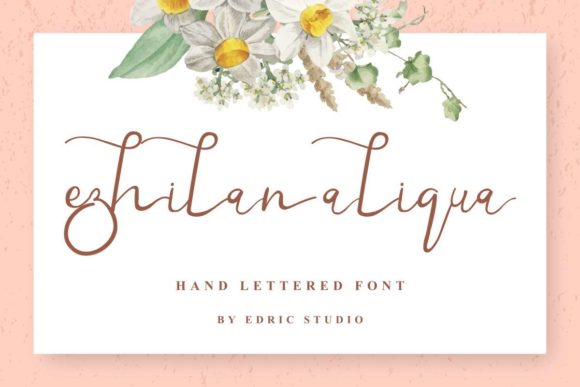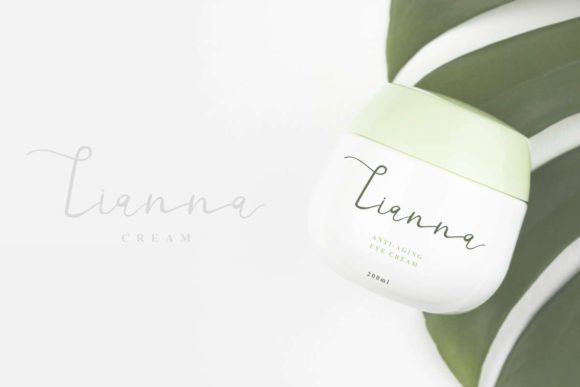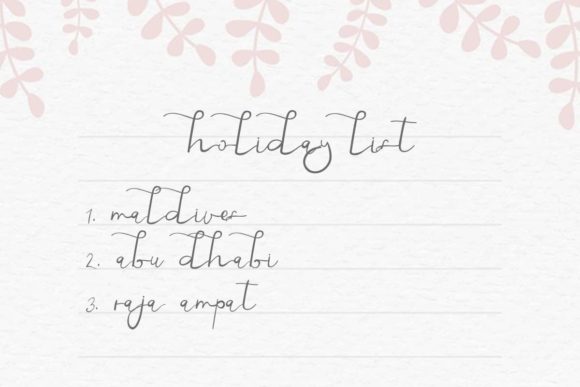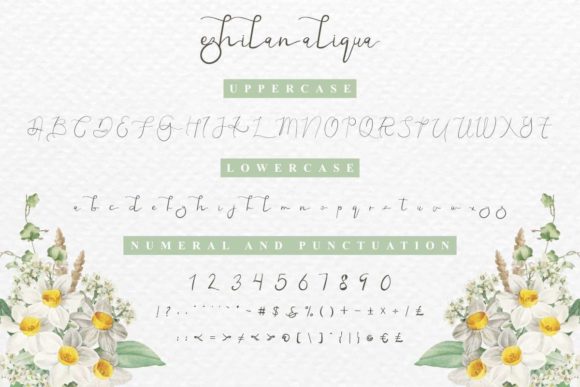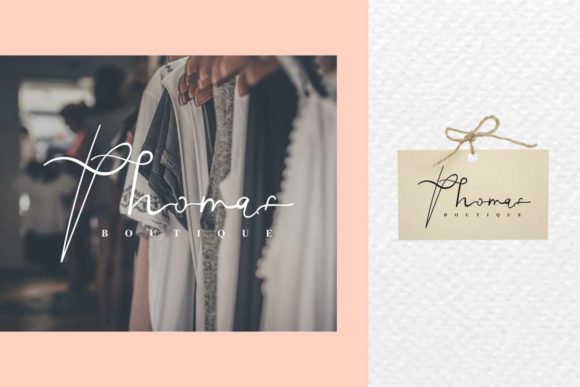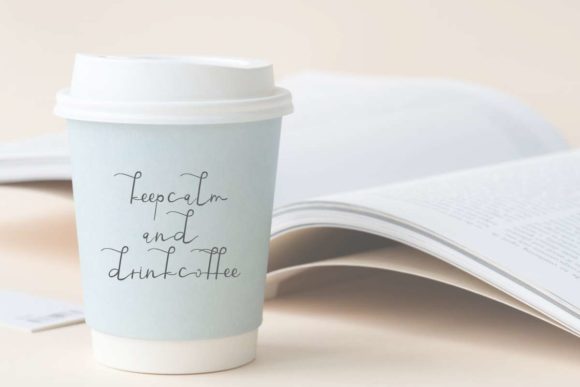
Discover the Magic of Ezhilan Aliqua Font
Have you ever been stuck on a design project, searching for the perfect font to bring your vision to life? We’ve all been there – pouring over fonts, trying to find that elusive combination of style and sophistication. And then, it hits you: the perfect font that elevates your design from ordinary to extraordinary. For many designers, that font is Ezhilan Aliqua, a sweet, soft hand-lettered script that adds a touch of elegance to any project.
Whether you’re working on branding, headings, wedding designs, or invitations, Ezhilan Aliqua Font is the perfect tool to take your designs to the next level. Its versatility and charm make it a valuable asset for designers looking to create unique and memorable designs. With Ezhilan Aliqua Font, you’ll be able to add a personal touch to your work, making it truly special and distinctive.
- Unique Characteristics: Ezhilan Aliqua Font features a unique blend of modern and traditional elements, making it an excellent choice for projects requiring a unique aesthetic.
Ezhilan Aliqua Font Review
First off, let me say that I was quite excited to dive into the Ezhilan Aliqua Font and see what it had to offer. I was immediately struck by the elegant and modern aesthetic it presents. The font has a sophisticated and refined look that’s perfect for any high-end branding or design project. ✨
One of the standout features of this font is its excellent legibility, even at smaller font sizes. This makes it an excellent choice for body text and other areas where clarity is key. Additionally, the font’s versatility allows it to work well in both digital and print applications. ✨
However, I did encounter a few limitations during my review. For one, the font’s character set is somewhat limited, which may not be ideal for languages that require a wider range of characters. Additionally, the font’s bold weight can sometimes appear slightly inconsistent, which may be a concern for designers who prioritize precision. ⚠️
Overall, I’d say that the Ezhilan Aliqua Font is a solid choice for designers who value elegance and sophistication in their typography. While it may have some limitations, its strengths far outweigh its weaknesses, making it a great option for a wide range of design applications.
Here are some key pros and cons to consider:
- ✨ Elegant and modern aesthetic
- ✨ Excellent legibility, even at smaller font sizes
- ✨ Versatile and suitable for both digital and print applications
- ⚠️ Limited character set
- ⚠️ Inconsistent bold weight in some cases
Tips for Getting the Most Out of Ezhilan Aliqua Font
Use Ezhilan Aliqua font to create elegant and sophisticated designs
Pair it with a clean and simple background to let the font shine
Experiment with different font sizes and colors to create visual interest
Use Ezhilan Aliqua font for:
Business cards and brochures
Magazine and newspaper headlines